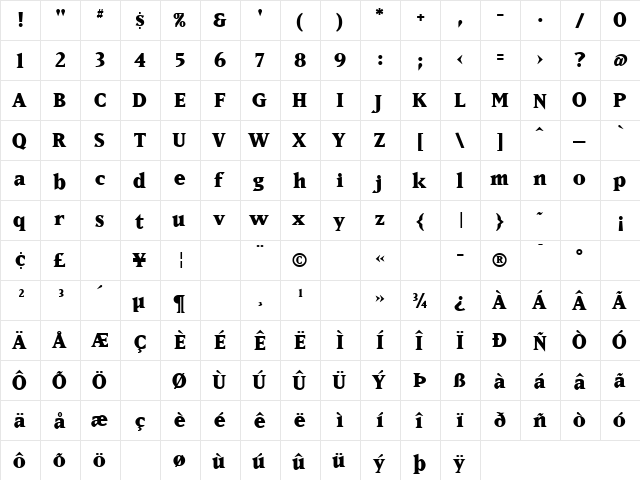
MatrixExtraBoldLining Bold
Design Context for MatrixExtraBoldLining Typeface
MatrixExtraBoldLining is a composed and adaptable typeface that performs quietly and consistently across a wide range of design contexts. The heavy weight commands attention and anchors typographic hierarchies.